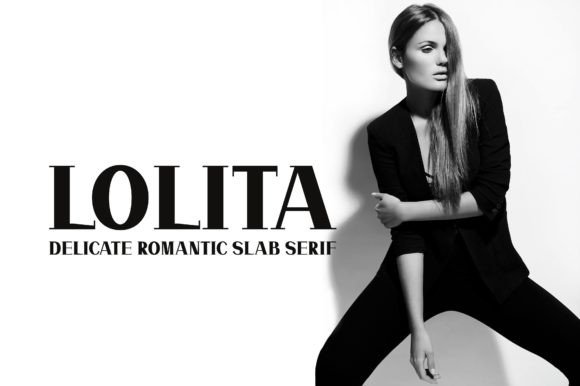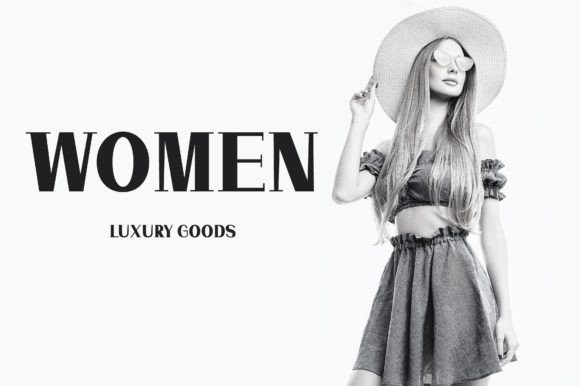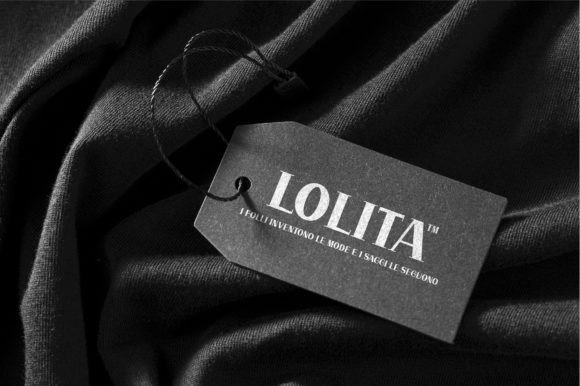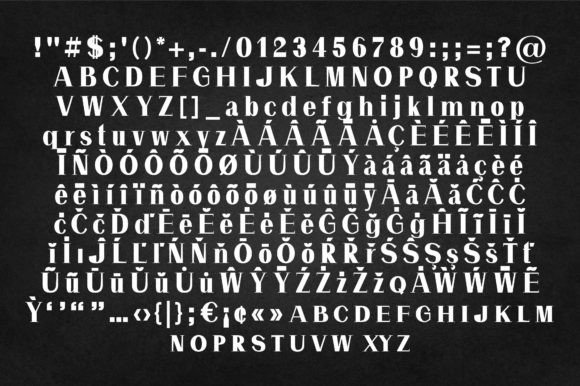
Lolita
Lolita: A Romantic and Elegant Typeface
Lolita, as the name suggests, is a romantic typeface intended to express romantic and sad themes. This delicate yet elegant font is particularly well-suited for fashion design, packaging design, cosmetics, and perfume design. It’s an excellent choice when you need a font that can bring a touch of sophistication to your particular creations.
Key Features of Lolita
• Romantic Design: Offers a soft and emotive look suitable for expressing romantic themes.
• Elegant Appearance: Brings a touch of sophistication to designs.
• Versatile Application: Ideal for fashion, cosmetics, and packaging projects.
• Delicate Style: Perfect for designs requiring a subtle yet impactful touch.
Ideal Uses for Lolita
Lolita’s unique characteristics make it particularly well-suited for:
When incorporating Lolita into your designs, consider these tips:
• Use for headlines or short phrases to showcase its romantic style.
• Pair with simpler sans-serif fonts for body text to create contrast.
• Utilize its delicate appearance in designs that require a soft touch.
• Consider using it for brand names in fashion and beauty industries.
Lolita is an excellent choice for designers looking to add a romantic and elegant typeface to their toolkit. Its ability to express soft, emotive themes makes it stand out in the world of typography. Whether you’re working on fashion branding, creating packaging for cosmetics, or developing content that requires a touch of sophistication, Lolita offers the perfect blend of delicacy and elegance.
Furthermore, Lolita’s unique design allows it to shine in various contexts. From luxury product labels to wedding invitations, this font can elevate your projects with its romantic charm. Its elegant yet functional style works particularly well in designs that aim to evoke emotions and create a sense of refined beauty.
In conclusion, Lolita is a font that truly captures the essence of romance and elegance in typography. Its ability to work well in both minimalist projects and more elaborate layouts showcases its versatility. For those looking to add a touch of sophisticated charm to their work, Lolita can enhance themed creations with its distinctive style. It’s the perfect choice for designers seeking to make a soft, stylish impact across a range of creative projects in the fashion, beauty, and luxury industries.